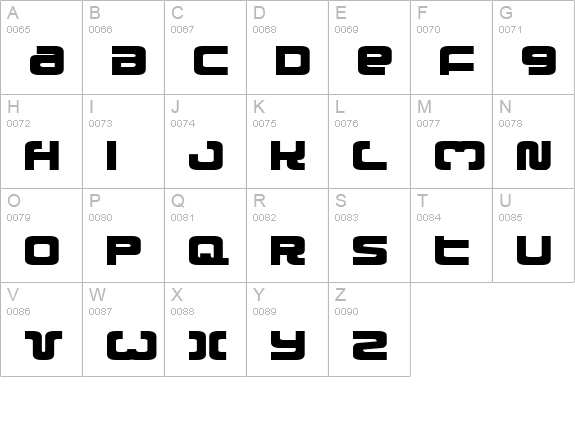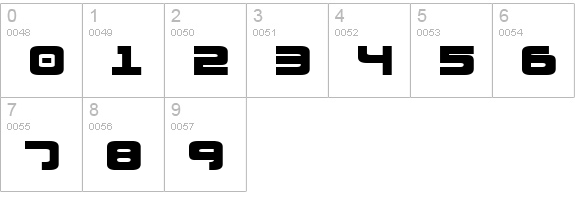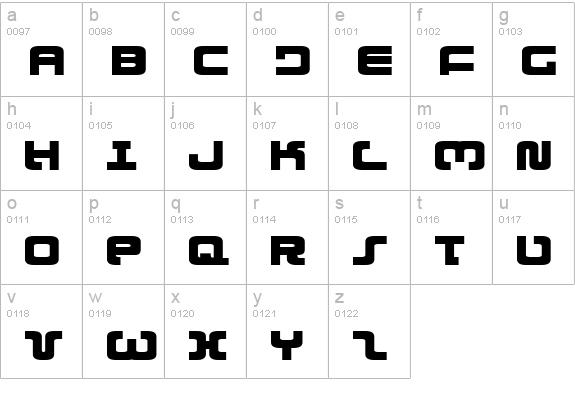
Exedore Expanded is a distinctive, extended-width variant in the Exedore typeface family \xE2\x80\x94 well suited to design and typography projects.
Exedore Expanded font is a modern and stylish typeface that exudes sophistication and versatility. With its clean lines and sleek design, this font is perfect for a wide range of design projects, from branding to editorial layouts. The Exedore Expanded font features a unique expanded style that adds a touch of elegance to any text. What makes Exedore Expanded font even more appealing is that it is available for free download at FontsMarket.com. Whether you're a designer looking to elevate your projects or a business owner wanting to refresh your branding, this font is the perfect choice. Don't miss out on the opportunity to enhance your designs with the exquisite Exedore Expanded font, now available for free at FontsMarket.com.